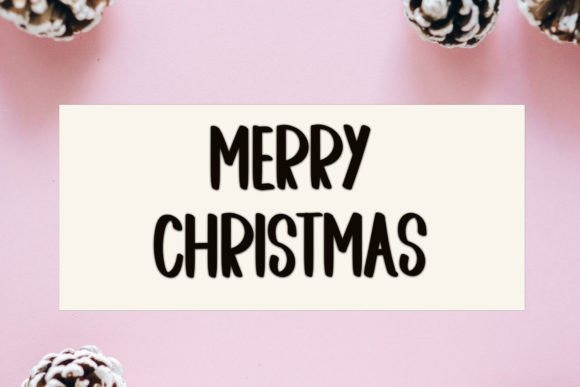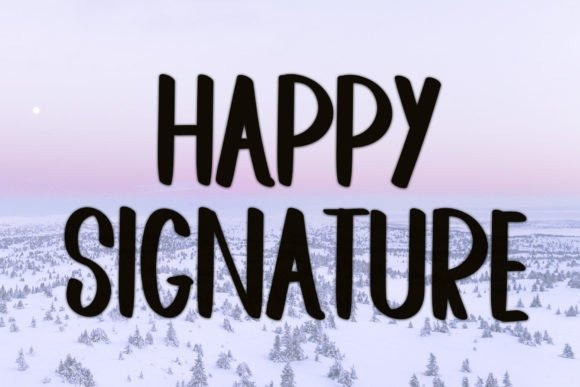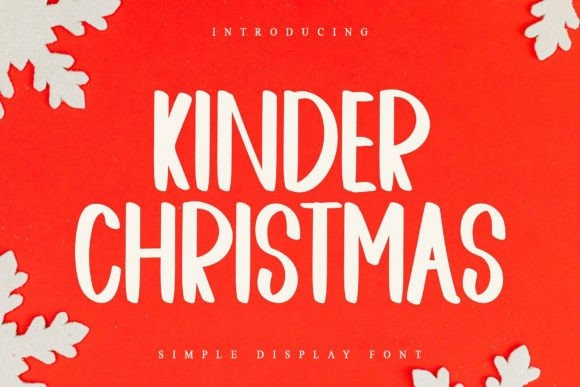
Kinder Christmas Font
Kinder Christmas Font is a casual handwritten font that exudes warmth and friendliness. Its rounded, playful strokes give a relaxed and approachable feel, perfect for personal projects, invitations, and social media graphics. The font’s charming, hand-drawn aesthetic adds a delightful, whimsical touch to any design.